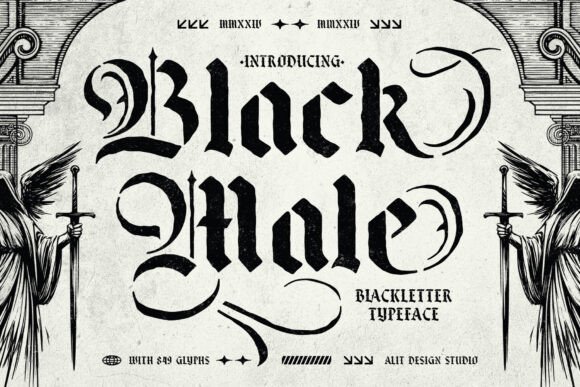
Introducing Black Male Font: The Ultimate Blackletter Stencil Typeface
Are you a designer or crafter looking for a font that combines historical calligraphy with modern industrial aesthetics? Look no further than Black Male, a meticulously designed blackletter stencil typeface that offers the perfect balance of style and functionality. With a rich character set of 849 glyphs, this font provides extensive typographic options, making it an ideal choice for a wide range of design applications.
Design and Features
Black Male is a carefully crafted font that boasts a unique blend of historical calligraphy and modern industrial design. The stencil aspect is engineered to ensure that every cut remains structurally sound, making it perfect for various applications, including screen printing, engraving, laser cutting, and vinyl lettering. The font features:
- 849 glyphs, including alternates, swashes, and ligatures for maximum design flexibility
- Extensive typographic options for creative freedom
- Structurally sound stencil design for flawless cut-outs
Black Male is an incredibly versatile font that can be used for a wide range of design applications, including:
- Gothic & Vintage Designs: Ideal for medieval, fantasy, and old-world aesthetics
- Streetwear & Apparel: A bold typeface that makes an impact in fashion and branding
- Tattoo & Artistic Designs: A perfect fit for intricate, edgy artwork
- Signage & Cut-out Applications: Specially designed to work flawlessly for signage, engraving, and laser cutting
Why Choose Black Male Font?
So, why should you choose Black Male font for your design projects? Here are just a few reasons:
- Timeless yet Edgy: Black Male delivers a timeless yet edgy visual impact that’s perfect for designs that require a bold statement
- Maximum Design Flexibility: With 849 glyphs and extensive typographic options, you have the creative freedom to experiment with different designs
- Technical Excellence: The font is carefully engineered to ensure that every cut remains structurally sound, making it perfect for various applications
Tips and Inspiration for Designers and Crafters
To get the most out of Black Male font, here are some tips and inspiration for designers and crafters:
- Experiment with Different Styles: Don’t be afraid to experiment with different styles and combinations of glyphs to create unique designs
- Pay Attention to Kerning and Spacing: Make sure to adjust kerning and spacing to ensure that your design looks professional and polished
- Use Black Male for Branding and Advertising: The font’s bold and edgy style makes it perfect for branding and advertising campaigns that require a strong visual impact
In conclusion, Black Male font is a powerful and versatile blackletter stencil typeface that’s perfect for designers and crafters looking for a font that combines historical calligraphy with modern industrial aesthetics. With its extensive character set, structural soundness, and design flexibility, Black Male is an ideal choice for a wide range of design applications. Whether you’re working on gothic and vintage designs, streetwear and apparel, tattoo and artistic designs, or signage and cut-out applications, Black Male font is sure to deliver a timeless yet edgy visual impact.